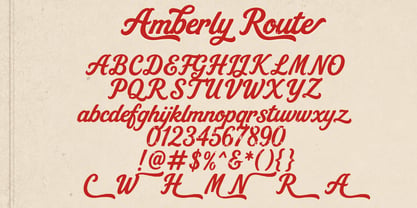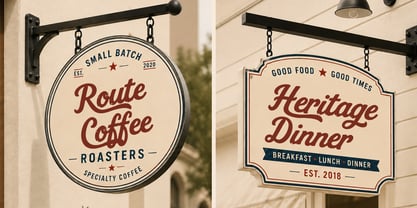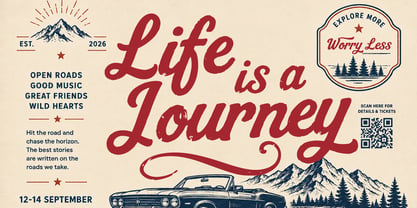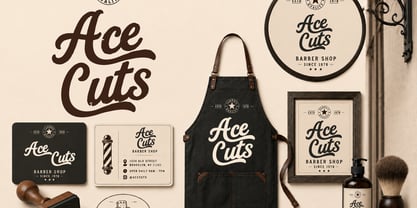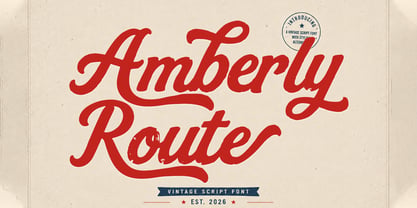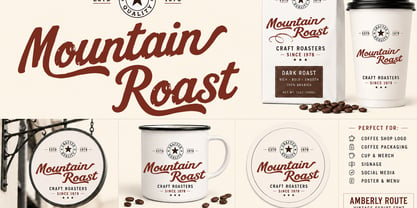
Amberly Route
by Cocodesign
The Amberly Route Font Family was designed by Muhammad Zaini and published by Cocodesign. Amberly Route contains 3 styles and family package options. More about this family
Amberly Route is a vintage script font crafted with smooth curves, bold strokes, and authentic handcrafted details. Its classic lettering style brings a timeless charm that works beautifully across a wide range of creative projects.
Featuring elegant swashes and stylish alternates, Amberly Route delivers a strong visual presence while maintaining excellent readability. Whether used for branding, packaging, signage, apparel, posters, labels, logos, social media graphics, or editorial designs, this font adds a warm and distinctive vintage character.
Designed to capture the spirit of classic sign painting and retro typography, Amberly Route combines nostalgic aesthetics with modern versatility, making it a valuable addition to any design collection.
Designers: Muhammad Zaini
Foundry: Cocodesign